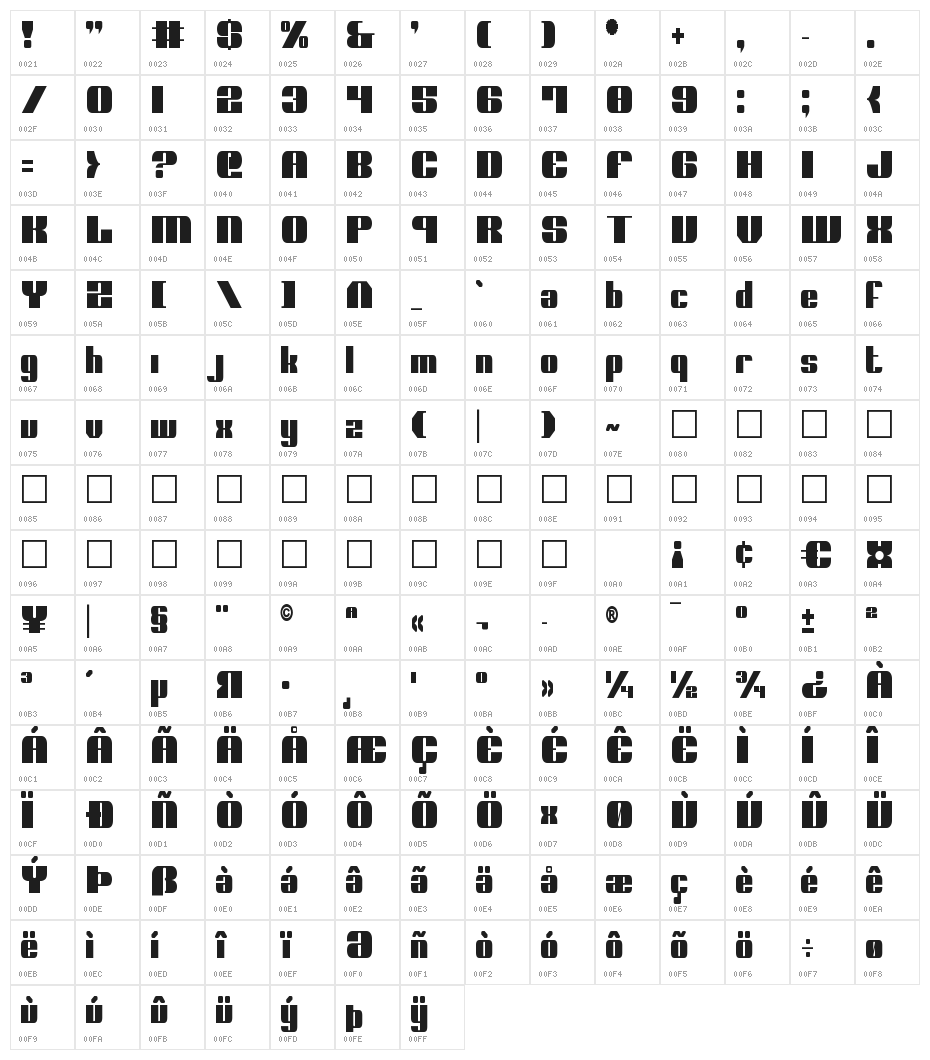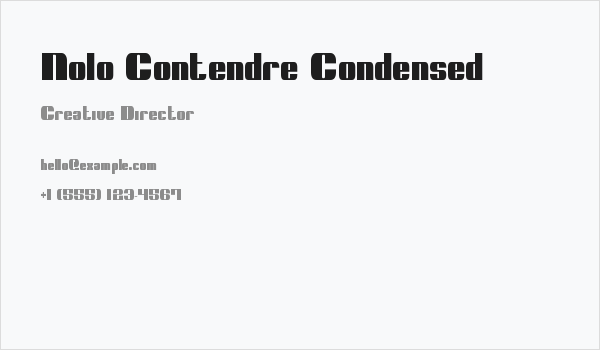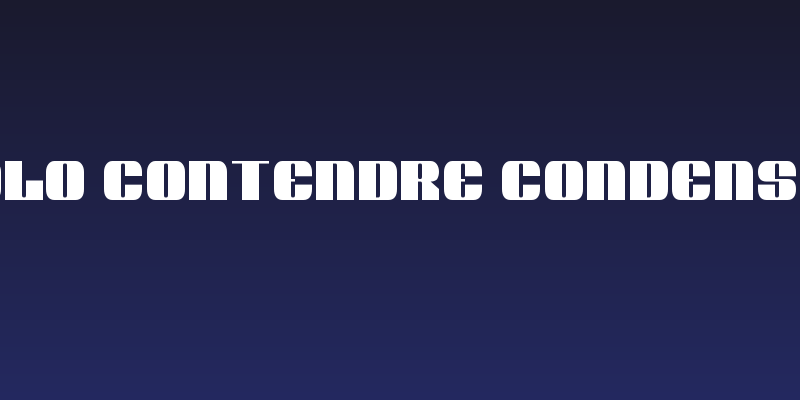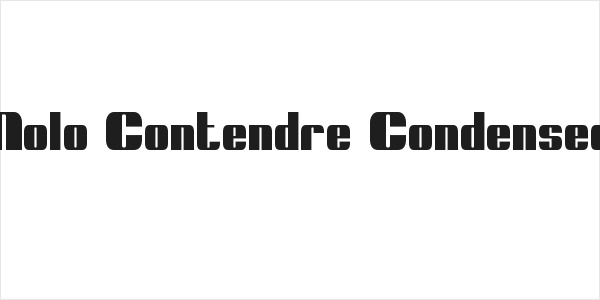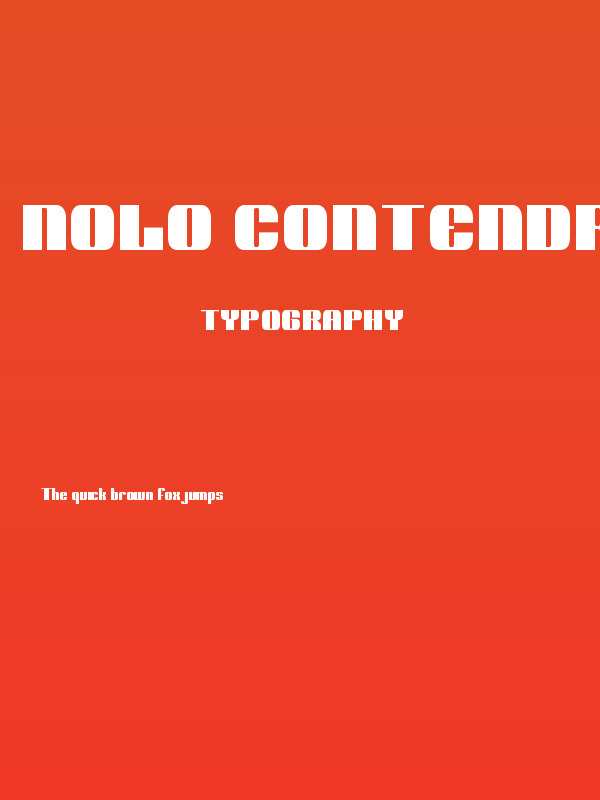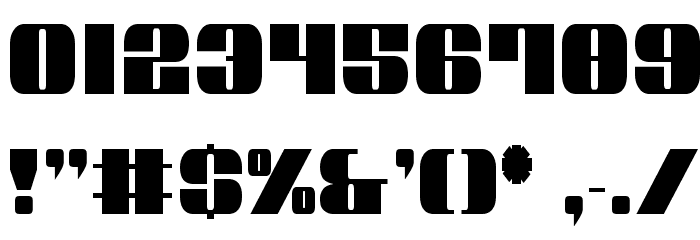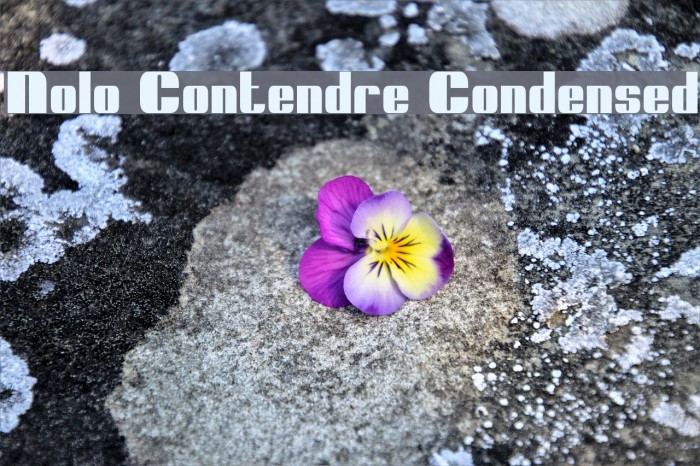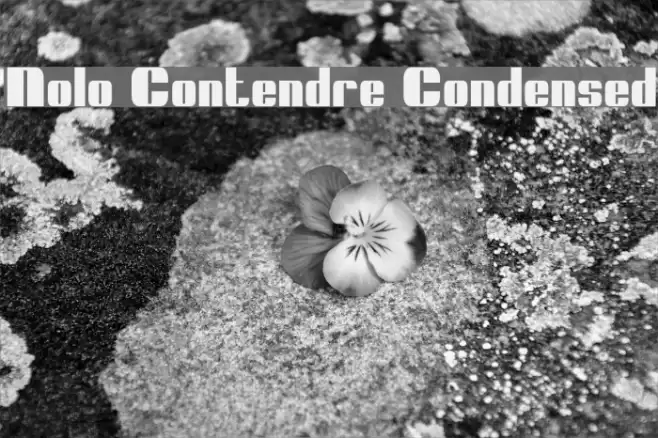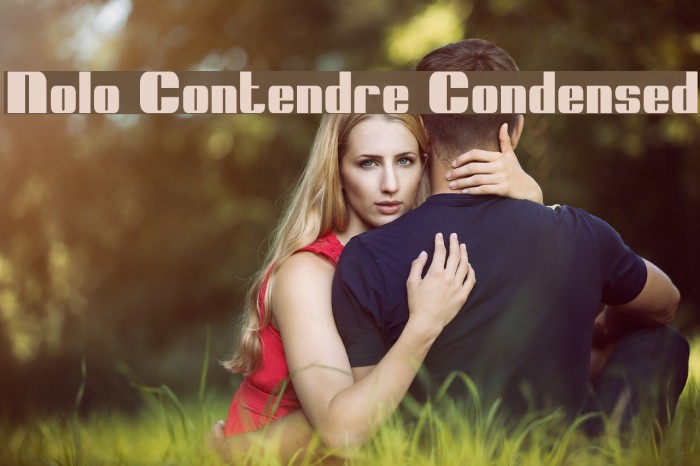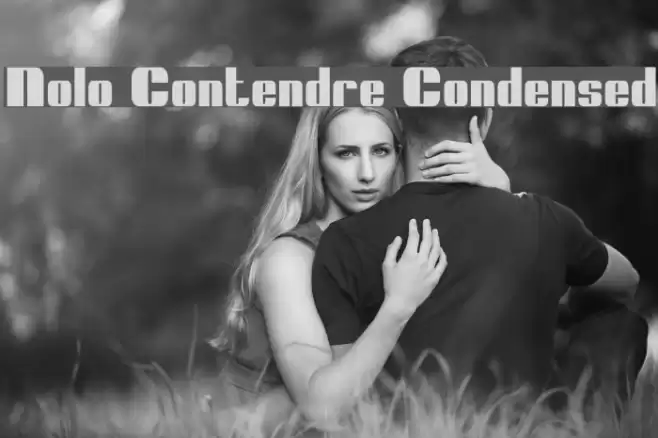
Nolo Contendre Condensed Font
Nolo Contendre Condensed Description
This font is a bold, condensed typeface with a strong and impactful presence. The characters are designed with a blocky, geometric style, featuring thick strokes and minimal contrast. The uppercase letters are uniform in height, while the lowercase letters maintain a consistent baseline, enhancing readability. The numerals and special characters follow the same bold and structured design, making them stand out. This font's condensed nature allows for efficient use of space, making it ideal for headlines and titles where attention is crucial.
| Proposed Projects | Ideal for posters, headlines, logos, and branding materials where a strong visual impact is needed. |